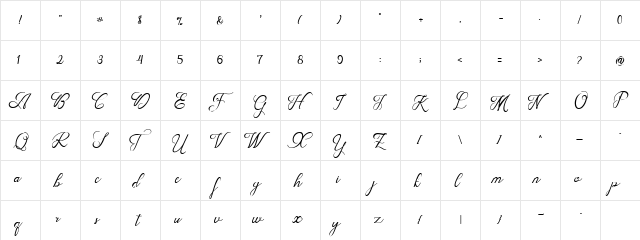
Wedding Script Regular
Wedding Script brings a calligraphic fluidity to the page — its connecting strokes and expressive curves give it an unmistakably human quality.
Font Pairing: Combine Wedding Script with a simple geometric sans for maximum contrast — the tension between flowing curves and clean structure is a classic typographic pairing.
Pro Tip: Pair Wedding Script with a clean sans-serif for supporting text. The contrast between fluid script and geometric structure creates an elegant typographic hierarchy.